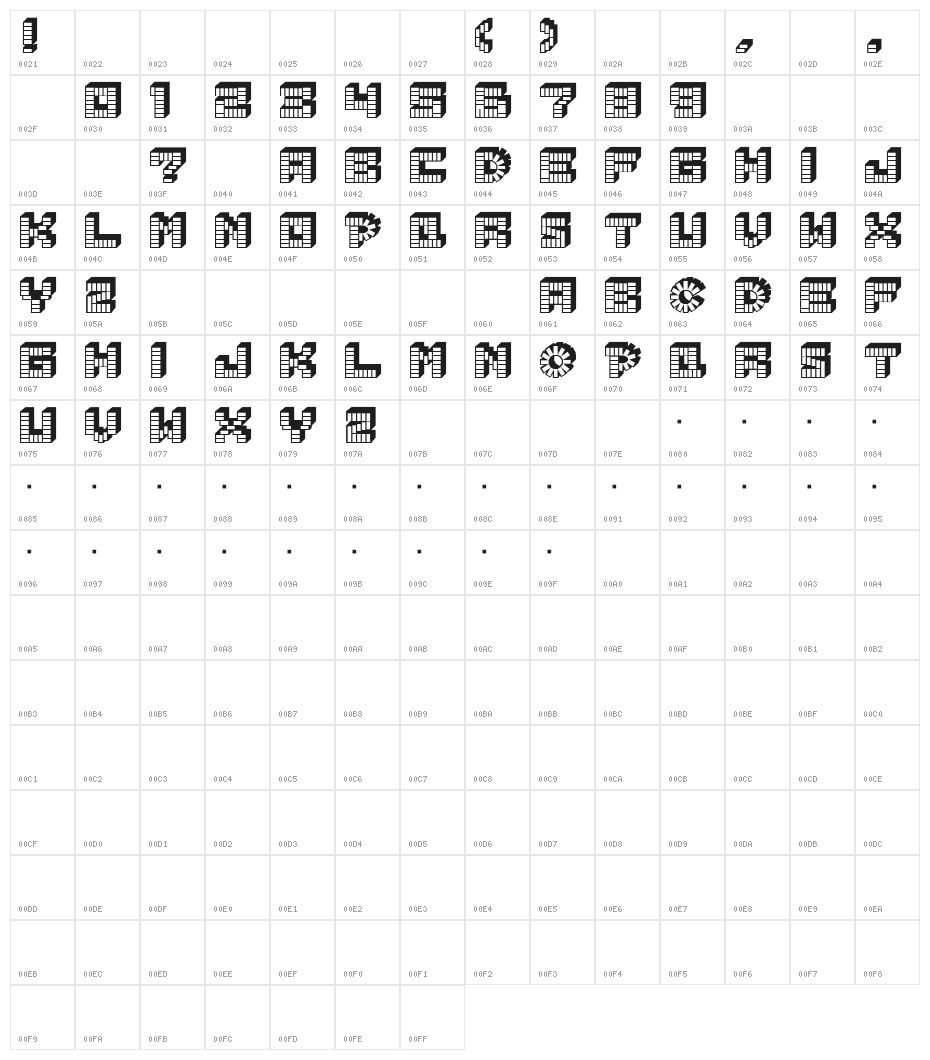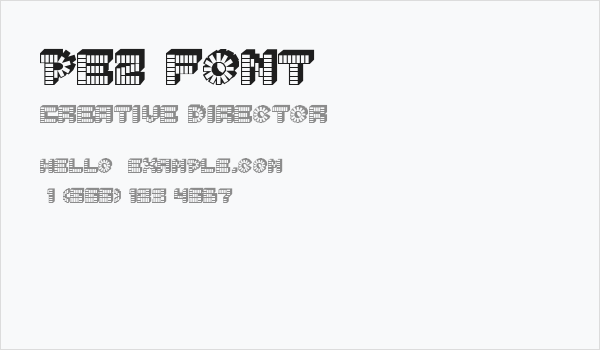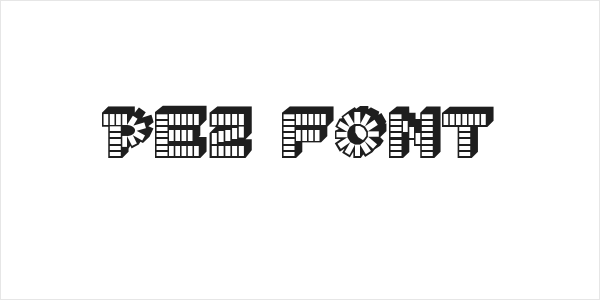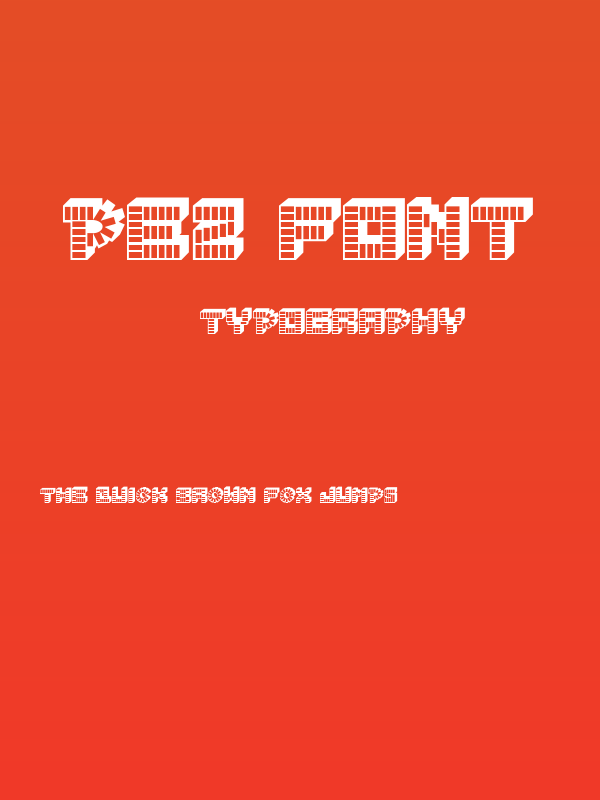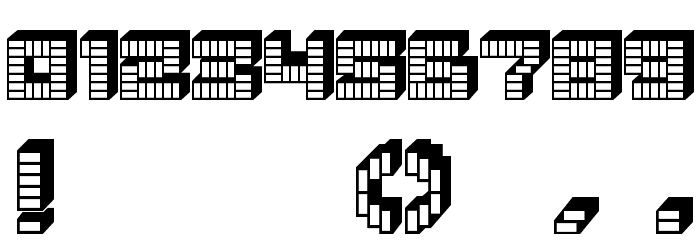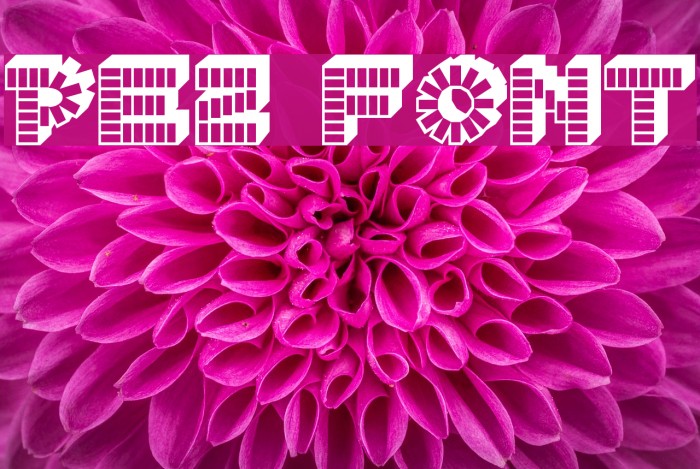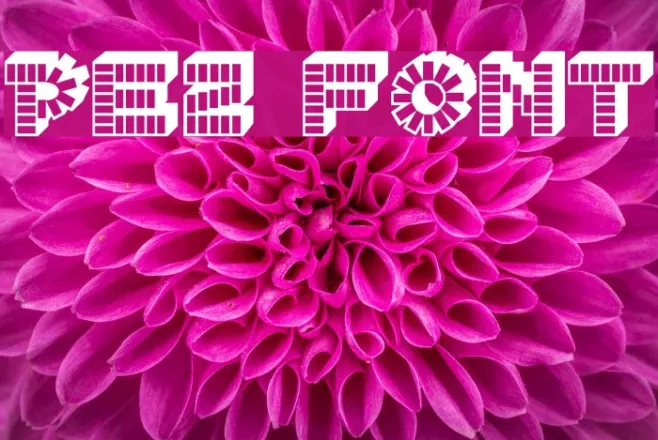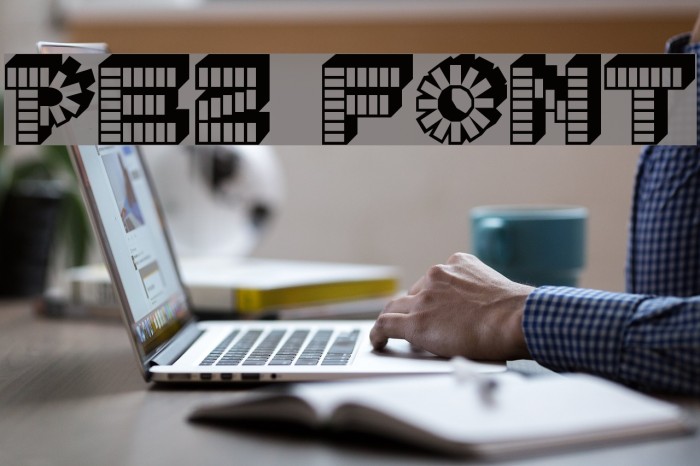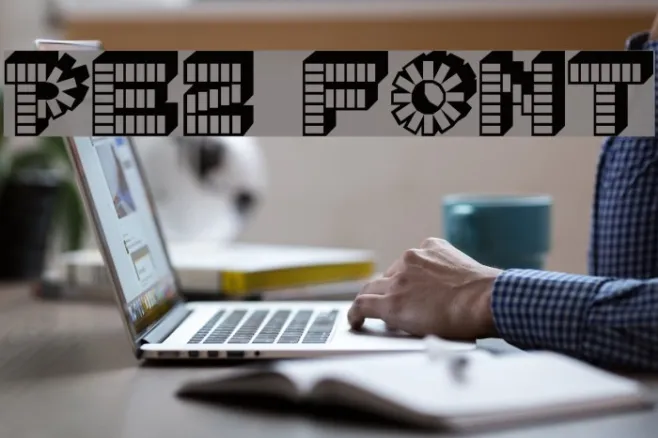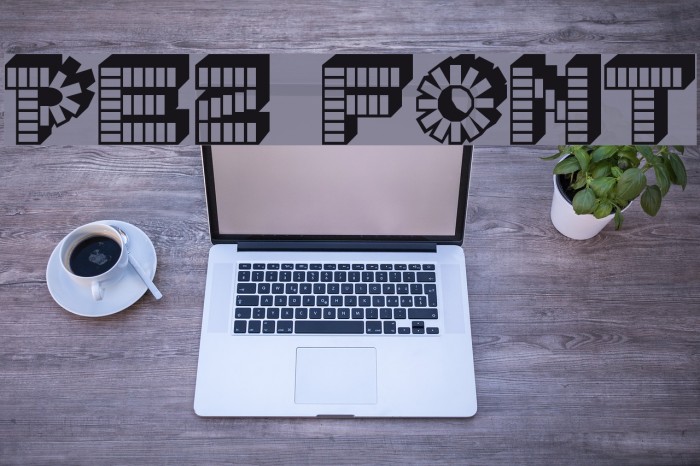
PEZ font Font
PEZ font Description
This font features a unique, three-dimensional block design that resembles stacked bricks or tiles. Each character is constructed with a grid-like pattern, giving it a playful and bold appearance. The letters and numbers are uniformly styled, maintaining a consistent look throughout. The font's geometric structure and strong lines make it highly distinctive, suitable for projects that require a standout visual element. The special characters, such as the exclamation mark and question mark, follow the same design principles, ensuring cohesion across all glyphs.
| Overall Style | Playful, Modern |
| Proposed Projects | Ideal for use in children's books, toy packaging, playful branding, or any project that requires a fun and eye-catching typeface. |